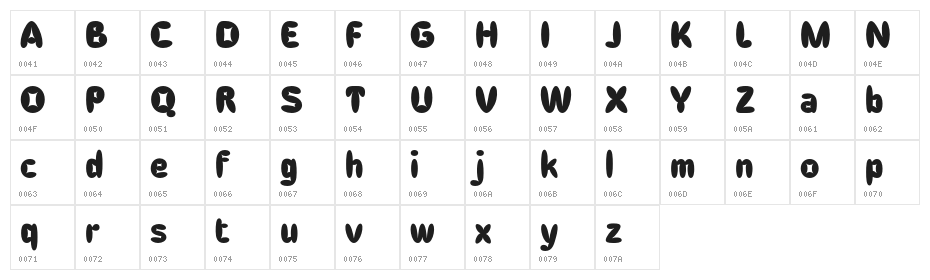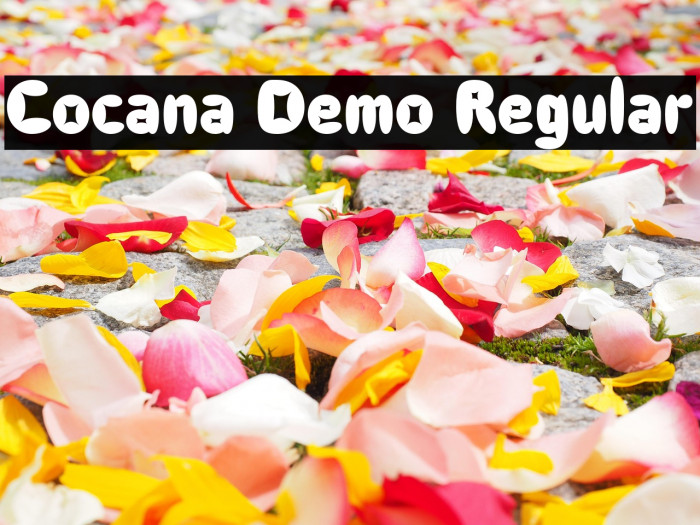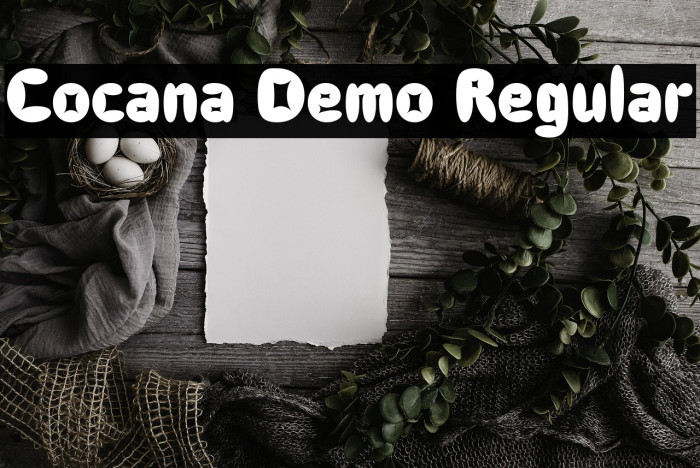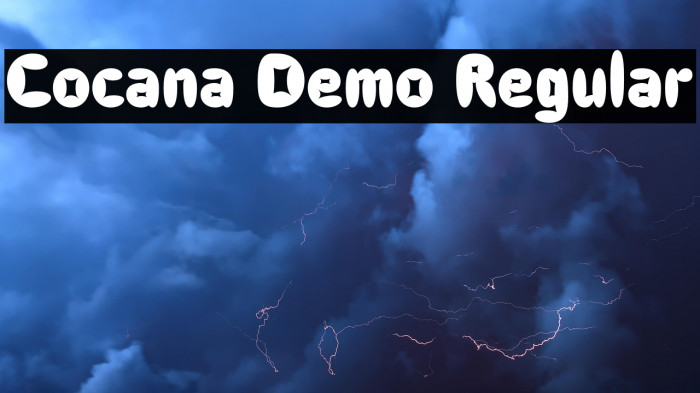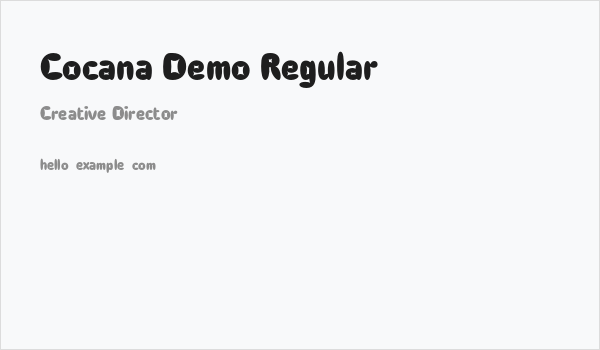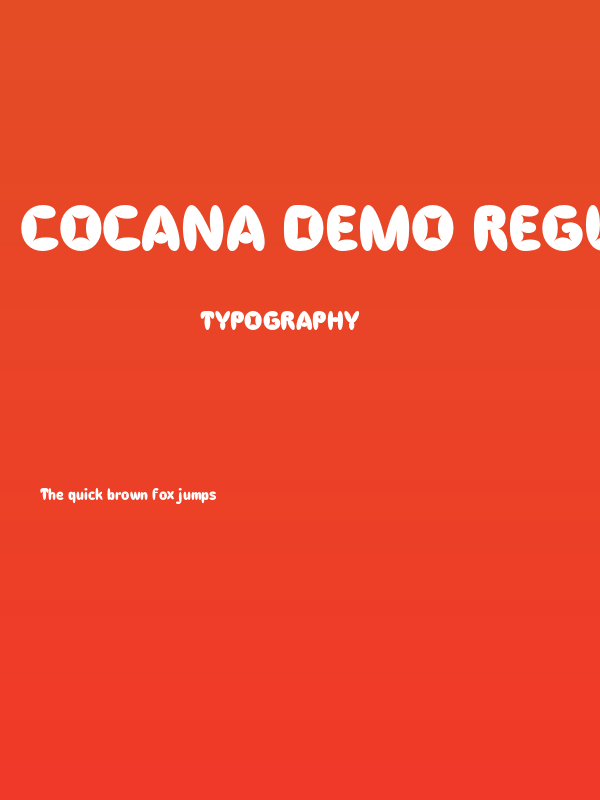
Cocana Demo Regular Font
Cocana Demo Regular Description
This font features a playful and bold design with rounded edges and a bubbly appearance. The characters are thick and have a consistent weight throughout, giving them a strong presence. The style is reminiscent of retro or vintage aesthetics, with a modern twist that makes it suitable for contemporary designs. The letters are evenly spaced, ensuring readability while maintaining a unique character. This font is ideal for projects that require a fun and engaging look, such as children's books, posters, or branding for creative businesses.
| Overall Style | Playful, Retro-Modern |
| Proposed Projects | Ideal for children's books, playful posters, creative branding, and eye-catching headlines. |